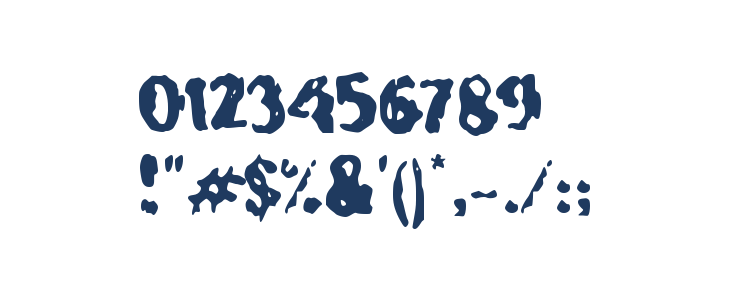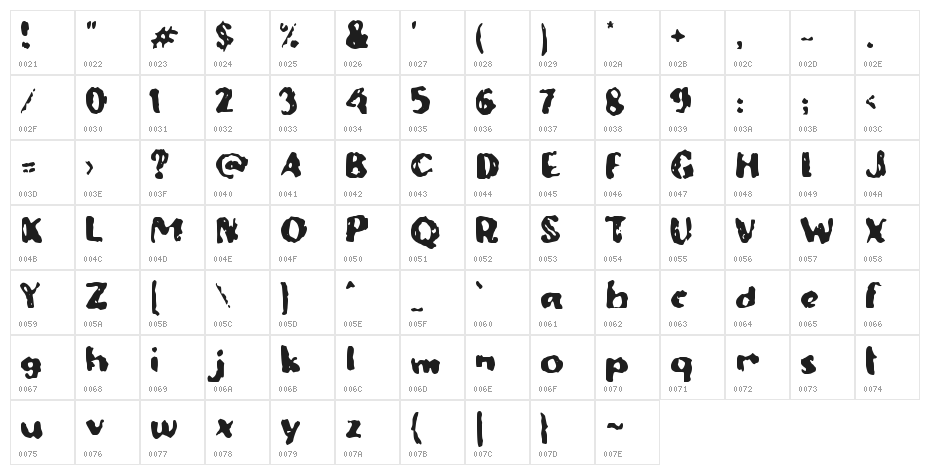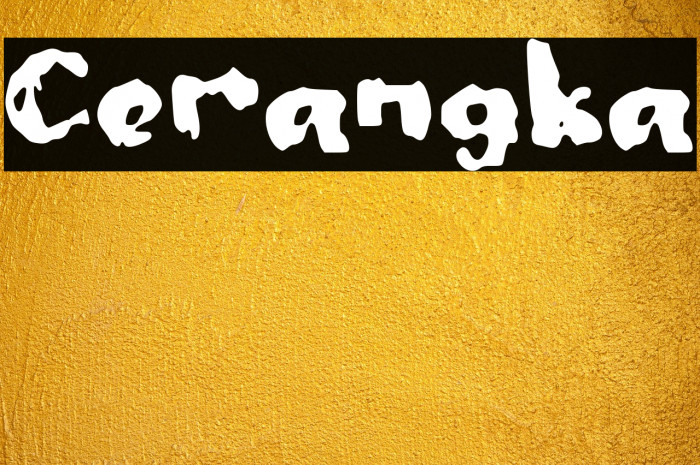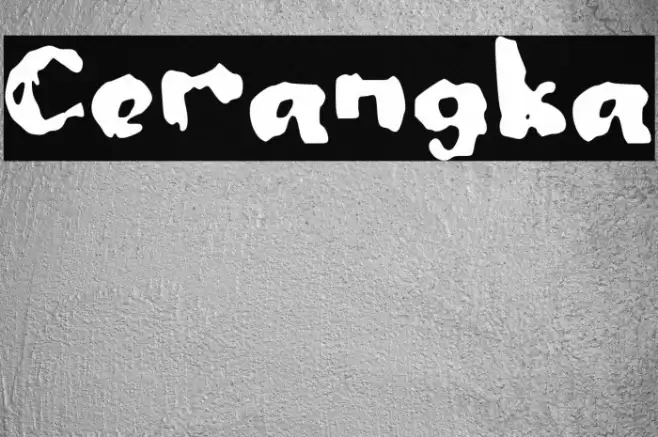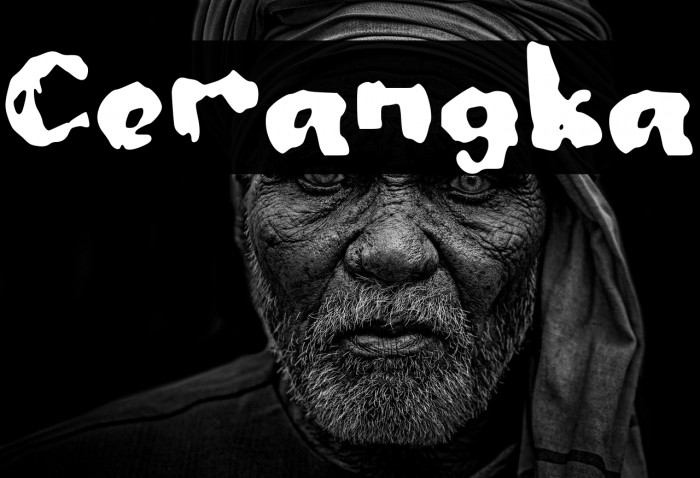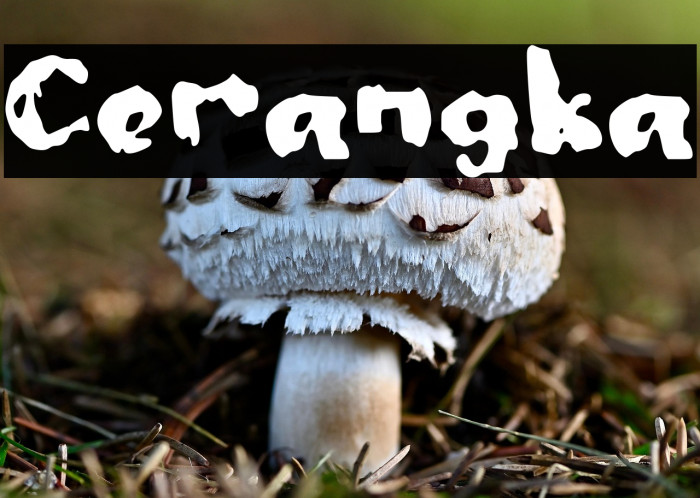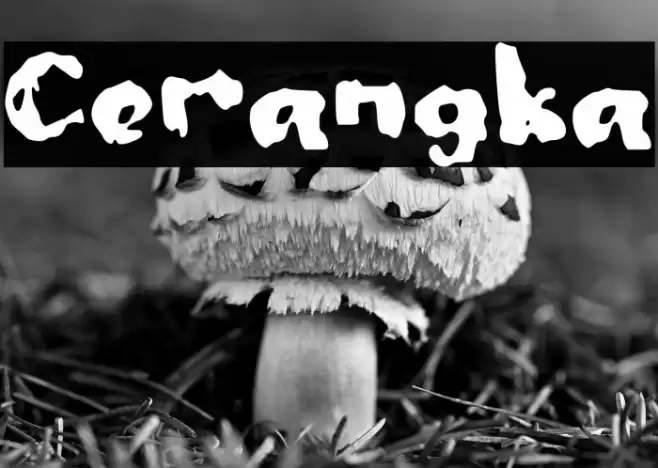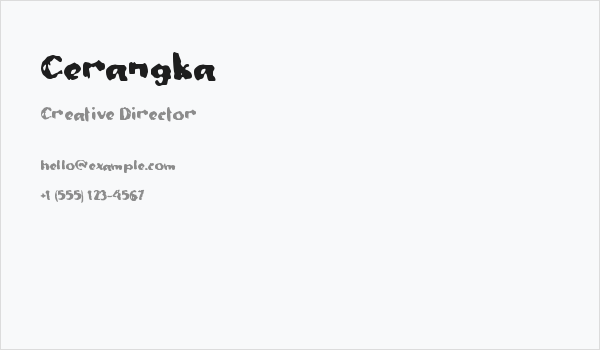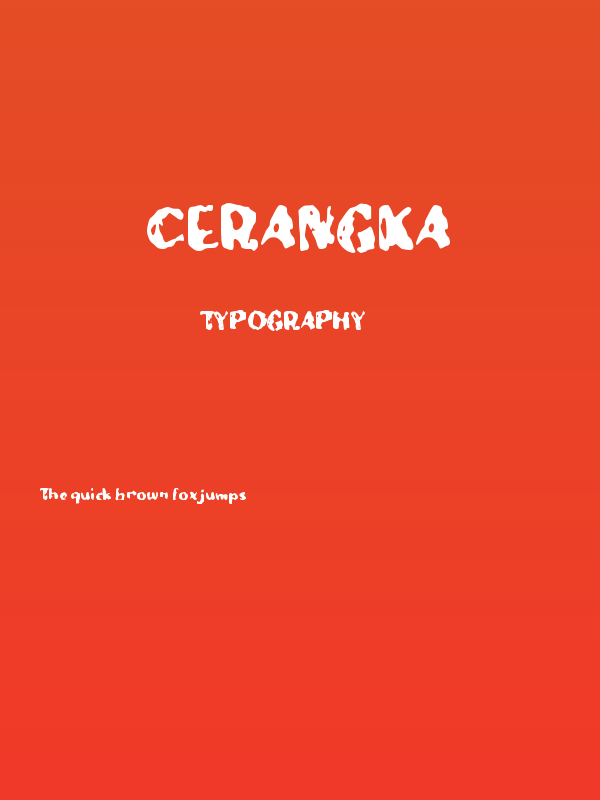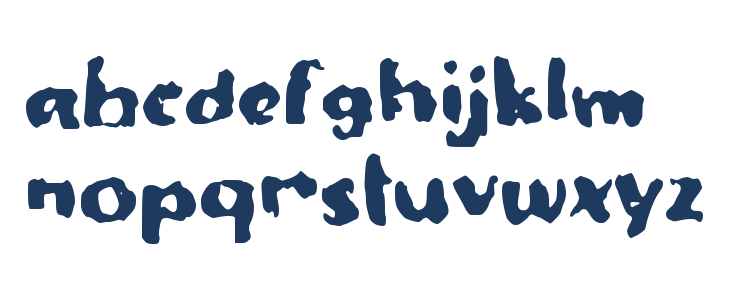
Cerangka Font
Cerangka Description
This font features a bold and irregular style, with a hand-drawn appearance that gives it a unique and artistic flair. The characters are thick and uneven, creating a sense of movement and energy. The uppercase and lowercase letters maintain a consistent style, with exaggerated curves and a playful, almost whimsical quality. The numbers and special characters follow the same design principles, ensuring a cohesive look across all elements. This font's distinctive style makes it stand out, perfect for projects that require a creative and unconventional touch.
| Overall Style | Artistic |
| Use Case | Logos, Posters, Creative Branding |
| Proposed Projects | Ideal for artistic projects, creative branding, posters, and unique logo designs. |